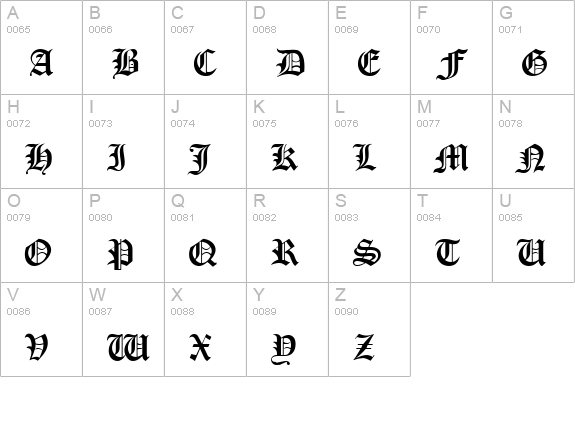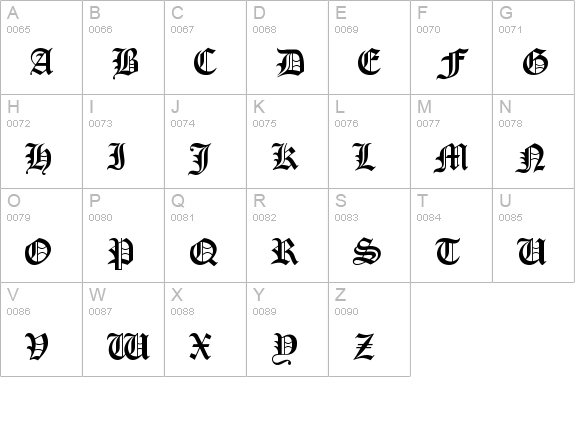
Old London DB Font Details
Old London DB font is a timeless and elegant typeface that exudes a classic charm and sophistication. With its vintage-inspired design and intricate details, this font is perfect for adding a touch of old-world elegance to your projects. The ornate flourishes and delicate serifs give Old London DB font a sense of refinement and luxury, making it ideal for invitations, branding, and other creative endeavors. Best of all, Old London DB font is completely free to download at FontsMarket.com. This means you can access this beautiful typeface without any cost, allowing you to bring a touch of timeless elegance to your designs without breaking the bank. Don't miss out on this wonderful opportunity to elevate your projects with the stunning Old London DB font - download it for free today!